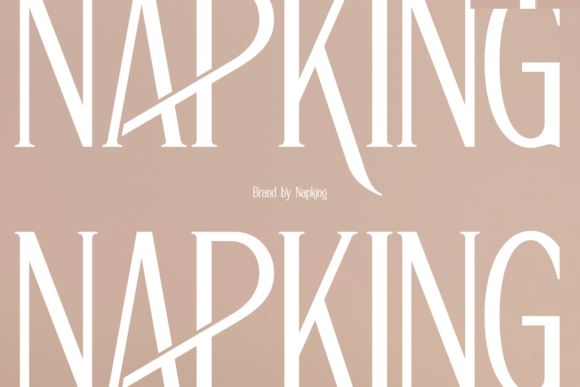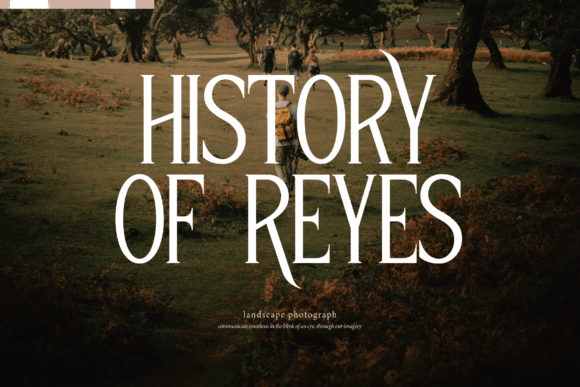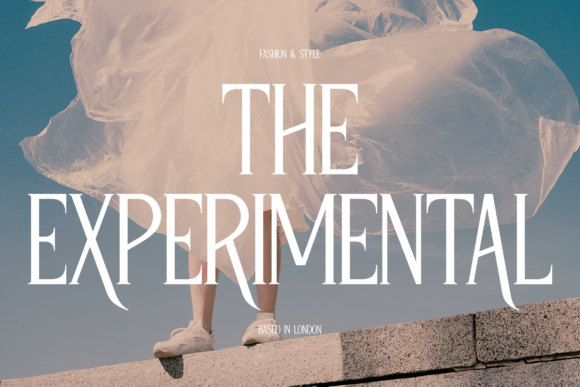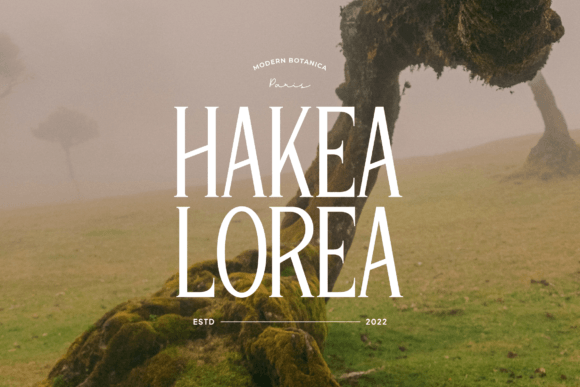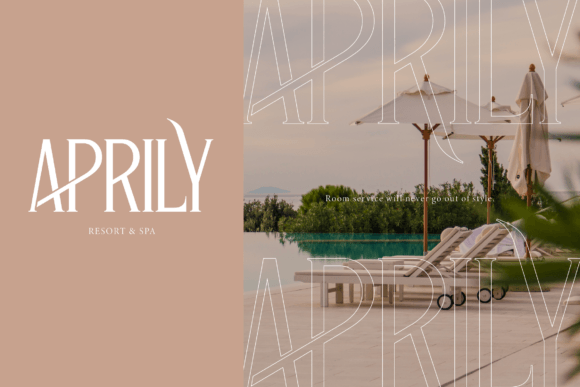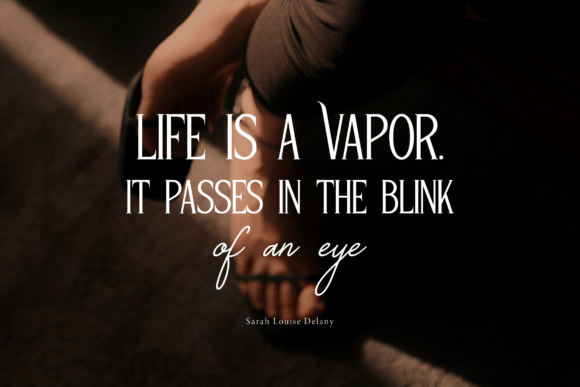
Arakiya Font: Elevate Your Designs with Elegance and Boldness
In the world of typography, fonts play a crucial role in conveying the message and aesthetic of a design. Among the myriad of fonts available, Arakiya stands out as a distinctive condensed serif font that embodies elegance, sharpness, and a modern appeal. This article delves into the characteristics, uses, and benefits of the Arakiya font, making it a valuable resource for designers and crafters looking to elevate their creative projects.
The Distinctive Features of Arakiya Font
Arakiya is characterized by its tall, narrow letters that give it a bold and modern look. This distinctive feature makes it an excellent choice for headlines, titles, or any design element where you want to capture attention and make a statement. The font’s condensed nature allows for efficient use of space without compromising on style or readability, making it versatile for various applications, from digital media to print.
Arakiya’s design combines classic serif details with a fresh, contemporary feel. The sharp edges and elegant lines of the font add a touch of sophistication, making it suitable for luxury brands, high-end products, or any project that requires a blend of tradition and modernity. The unique style of Arakiya ensures that your designs stand out in a crowded visual landscape.
Uses of Arakiya Font
The versatility of Arakiya font makes it suitable for a wide range of design projects. Here are some of the key applications:
- Headlines and Titles: The bold and modern appearance of Arakiya makes it perfect for headlines and titles, where grabbing the reader’s attention is paramount.
- Branding and Logos: For brands looking to convey a sense of elegance, sophistication, and modernity, Arakiya can be a great choice for logos and brand typography.
- Advertising and Marketing Materials: In advertising and marketing, standing out is crucial. Arakiya’s distinctive look can help make your promotional materials more eye-catching and effective.
- Web Design: For web designers looking for a font that can add a professional and contemporary touch to a website, Arakiya can be an excellent option, especially for headings and titles.
Benefits of Using Arakiya Font
Choosing Arakiya font for your design projects comes with several benefits:
- Unique Aesthetic: Arakiya offers a unique blend of classic and modern elements, making your designs memorable and distinctive.
- Versatility: Its condensed serif design makes it adaptable to various design contexts, from digital interfaces to print materials.
- Readability: Despite its condensed nature, Arakiya maintains a high level of readability, ensuring that your message is conveyed effectively.
- Elegance and Sophistication: The font’s elegant lines and sharp edges add a touch of sophistication, elevating the overall look of your designs.
How to Use Arakiya Font Effectively
To maximize the impact of Arakiya font in your designs, consider the following tips:
- Pair with Complementary Fonts: When using Arakiya for headlines, pair it with a simpler, sans-serif font for body text to create visual contrast and hierarchy.
- Adjust Letter Spacing: For better readability, especially in longer titles or headings, adjust the letter spacing to find the perfect balance.
- Utilize Font Weights: If Arakiya comes in multiple weights, use the lighter weights for subtitles or secondary information and the bold weights for main titles.
Arakiya font is a powerful tool for designers and crafters looking to infuse their projects with elegance, modernity, and a distinctive style. Its unique blend of classic serif elements and contemporary design makes it an excellent choice for a wide range of applications, from branding and advertising to web design and print materials. By understanding its features, uses, and benefits, and by applying it effectively in your designs, you can elevate your creative projects and make a lasting impression on your audience.